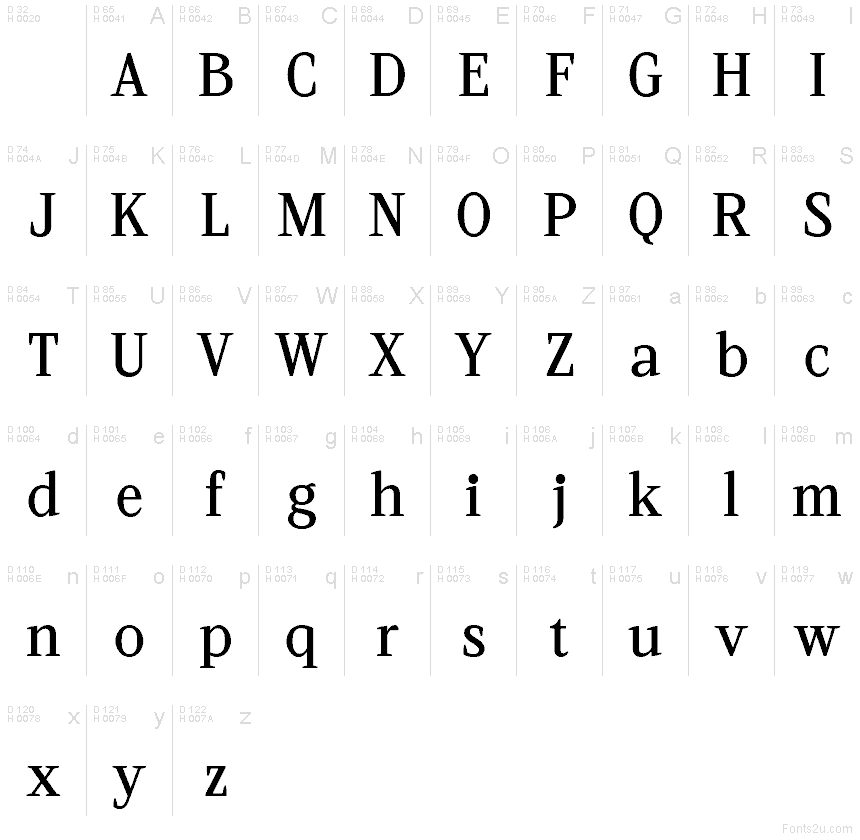
CS Vincero Regular Demo
CS Vincero font by Craft Supply Co. is a free high-contrast serif display font. It solves the classic luxury-brand dilemma: you want drama and polish, but you also need clarity. Sculpted, knife-edge serifs, smooth tapered strokes, and open counters create a crisp rhythm that reads cleanly at medium sizes while still delivering that glossy, editorial snap at large scale. The spacing feels taut without crowding, so headlines sit with confidence and logos lock up neatly.
This free font shines on fashion branding, boutique packaging, magazine covers, restaurant menus, posters, and website hero graphics. Using CS Vincero lends a refined, modern-classic voice—assertive yet not shouty—thanks to its vertical stress and elegant contrast. Pair it with a neutral grotesk sans for body copy, and add a touch of letterspacing when setting it extra large to let the hairline details breathe.